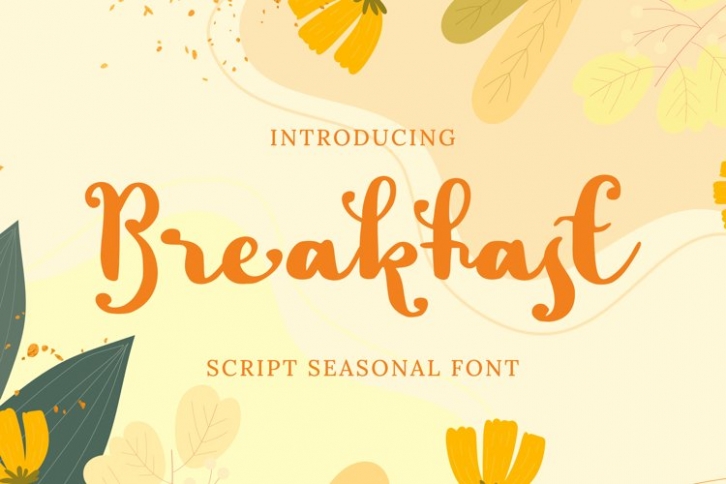
Breakfast is a beautiful font that was designed by plusstore. It's a great choice for designers and creatives who need such a font. It was released on July 7, 2021 and the file size is 21.15 MB. Breakfast may give a more youthful, expressive and casual look to your project. It is a very beautiful, refined, elegant, and high-quality font.